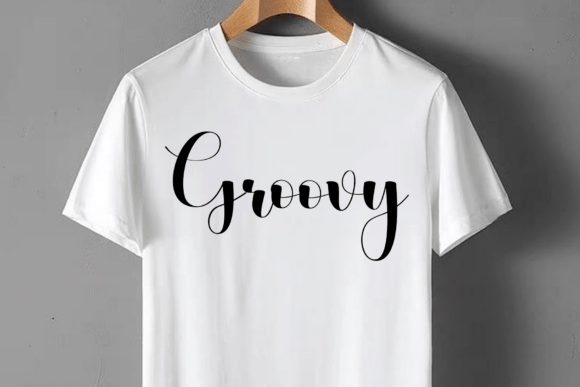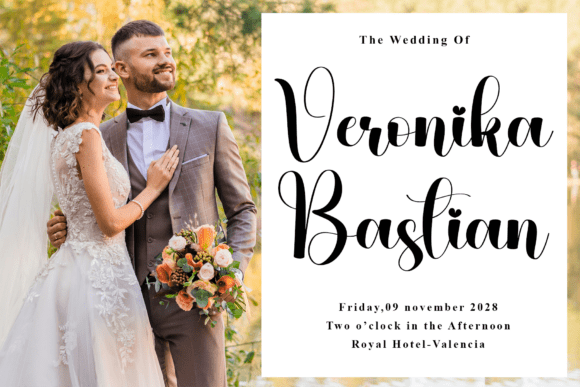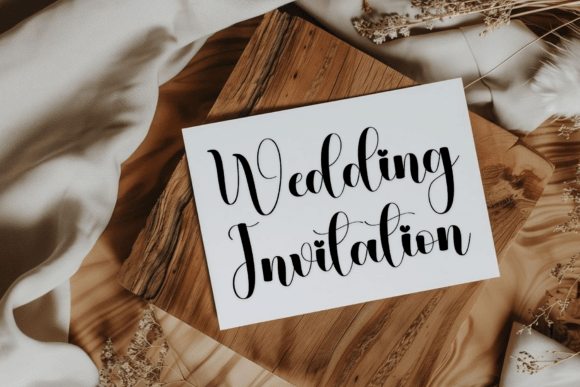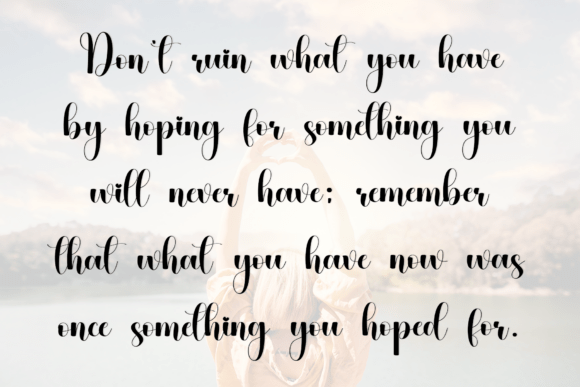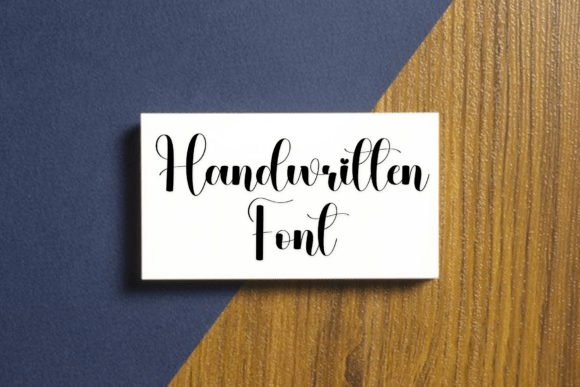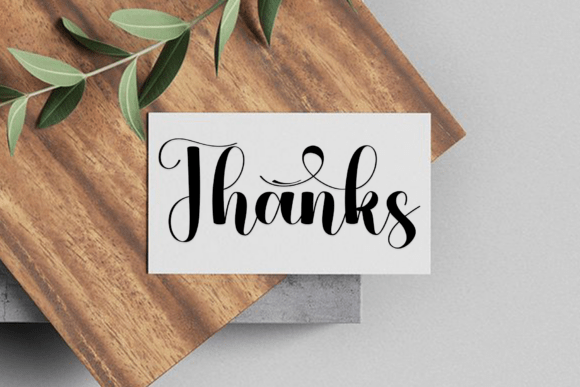
When Love is in the Air, Design Flows with Elegance
As I sat at my desk, surrounded by scraps of paper and half-finished designs, I couldn’t help but feel the excitement of Valentine’s Day creeping in. It’s a time when love is in the air, and creativity flows with an extra dose of romance. I reached for my favorite font, one that exudes the same sense of refined elegance and stylish flair that I feel on this special day.
Enter the Barbie Valentines Font, a sophisticated handwritten script font that brings a touch of personal charm to any project. Its unique balance of decorative swashes and clear, legible letterforms make it perfect for branding, invitations, and anything that requires a hint of romantic charm. As a designer, I can attest to the value of this font in adding a dynamic, artistic quality to any design, making it both modern and timeless.
Key Features of Barbie Valentines Font
- Font Family: A custom, cursive font designed specifically for Valentine’s Day and romance-themed designs.
- Unique Characteristics: Features a feminine, elegant, and playful style, with intricate details and flourishes that evoke the spirit of Valentine’s Day.
Designer Review: Barbie Valentines Font
First impressions matter, and the Barbie Valentines Font delivers. The font is a lovely, cursive script that screams “romance” and is perfect for Valentine’s Day-themed designs. ✨ It’s playful, whimsical, and instantly conveys a sense of sweetness and affection. The font’s rounded edges and flowing lines add a touch of femininity, making it a great fit for feminine and romantic designs.
The font also comes in a variety of weights, from light to bold, giving you the flexibility to customize the design to your liking. ✨ This makes it easy to use the font for a range of applications, from social media graphics to wedding invitations. Additionally, the font is highly legible, even at small sizes, which is a must for digital designs.
- ⚠️ The font may not be suitable for modern or edgy designs, as it’s a bit too playful and sweet.
- ⚠️ Some users may find the font too cursive, making it difficult to read in certain contexts.
- ⚠️ The font’s limited expressiveness may not make it suitable for complex or technical content.
Overall, I think the Barbie Valentines Font is a lovely addition to any designer’s toolkit. While it may have some limitations, it’s a great choice for romantic and feminine designs, and its versatility makes it a valuable asset for a range of applications.
The Barbie Valentines Font is perfect for creating playful and feminine designs for Valentine’s Day. Use it in:
- Valentine’s Day cards and invitations.
- Social media posts and graphics.
- Valentine’s Day-themed presentations and documents.
Remember to experiment with different font sizes, colors, and styles to get the most out of this fun and playful font.